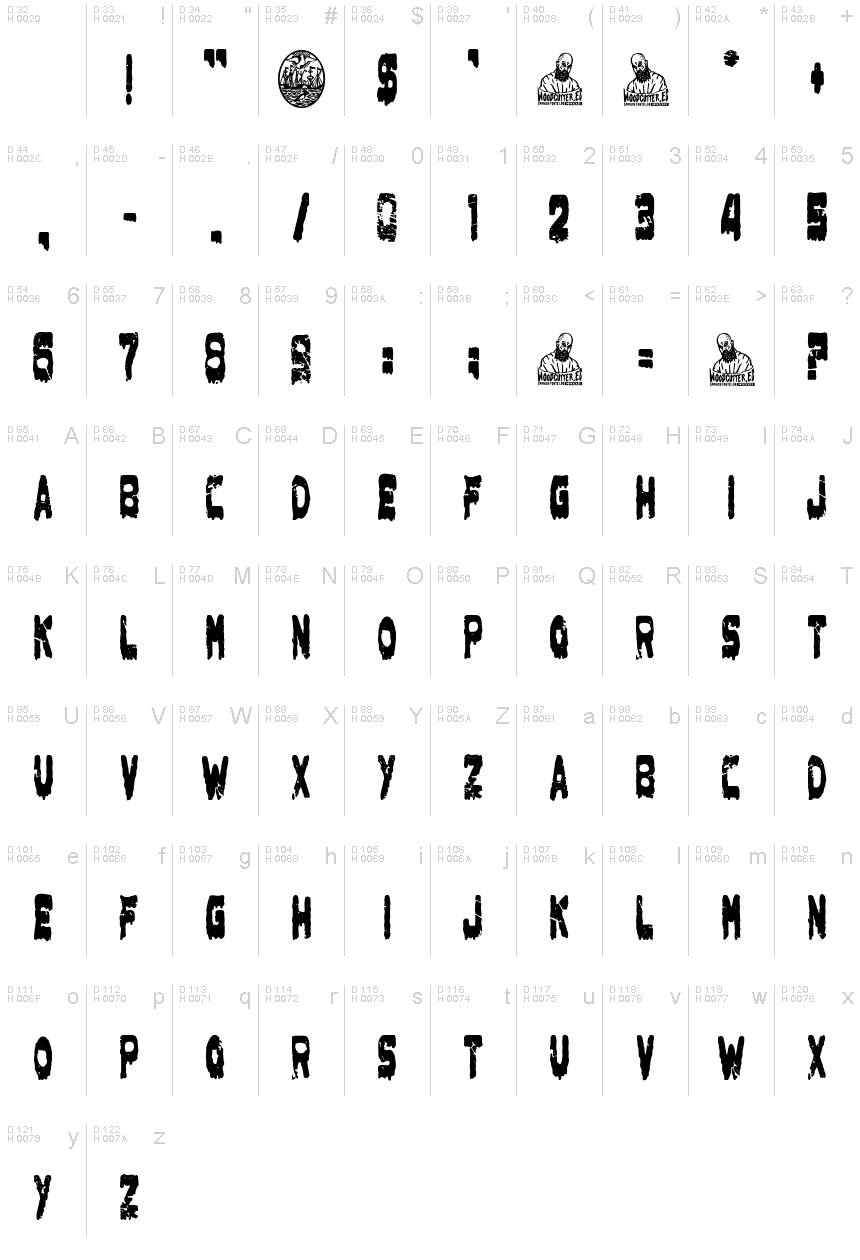
Death in Buenos Aires
The Death in Buenos Aires font, designed by Woodcutter, is a bold and extra-condensed display typeface. With its eroded and scary style, it is the perfect choice for projects that require a spooky and haunting atmosphere.
Embrace the Halloween spirit with this font's dripping effect, which adds an eerie touch to any design. Whether it's creating promotional materials for horror movies or designing creepy party invitations, Death in Buenos Aires will make your text stand out with its unique and chilling appearance.